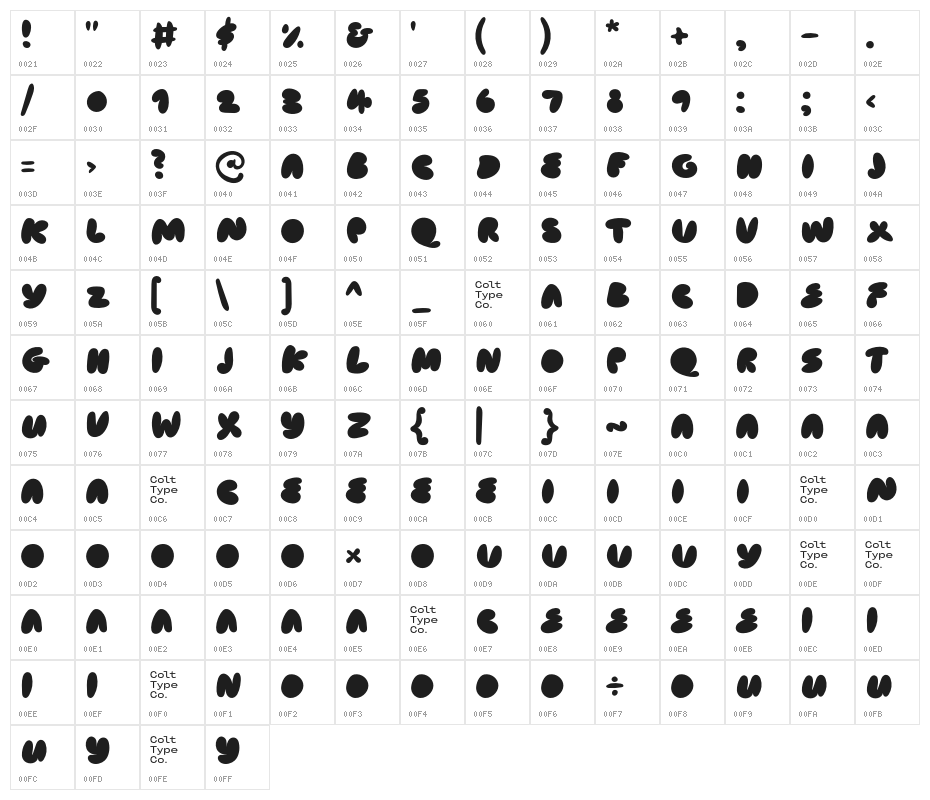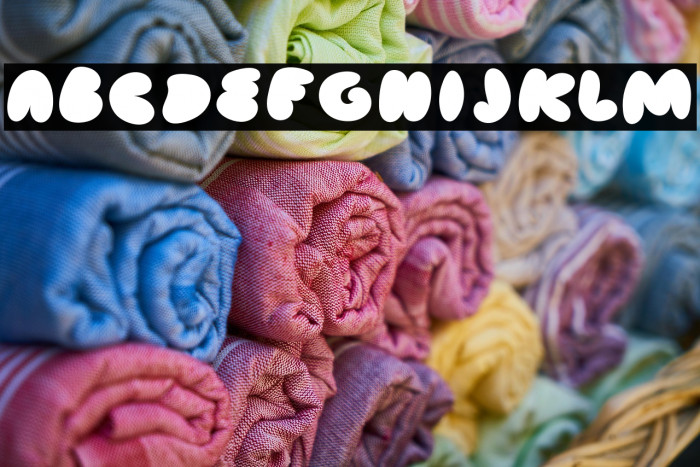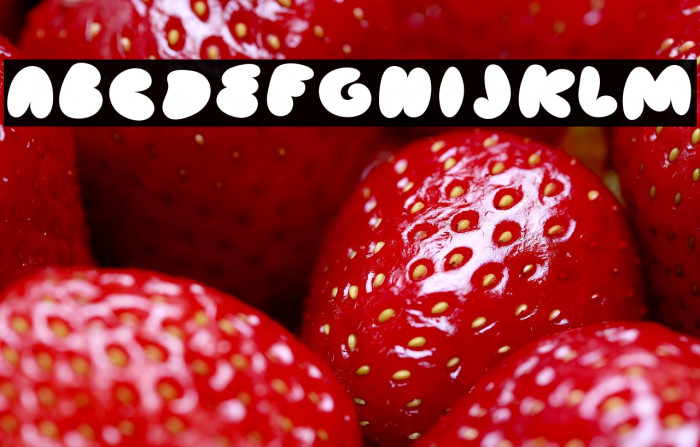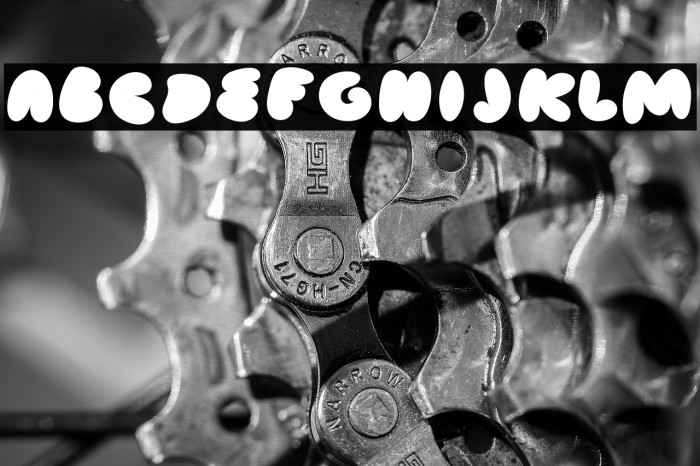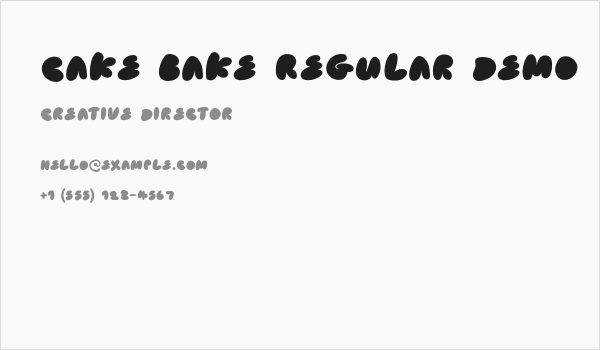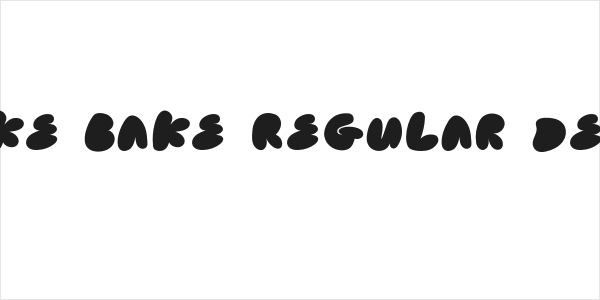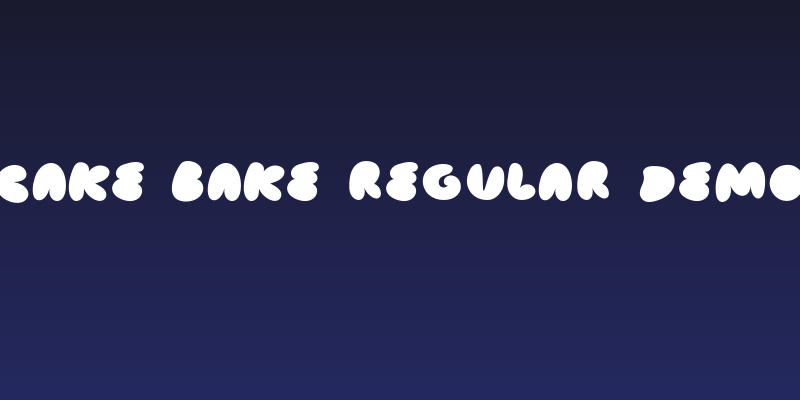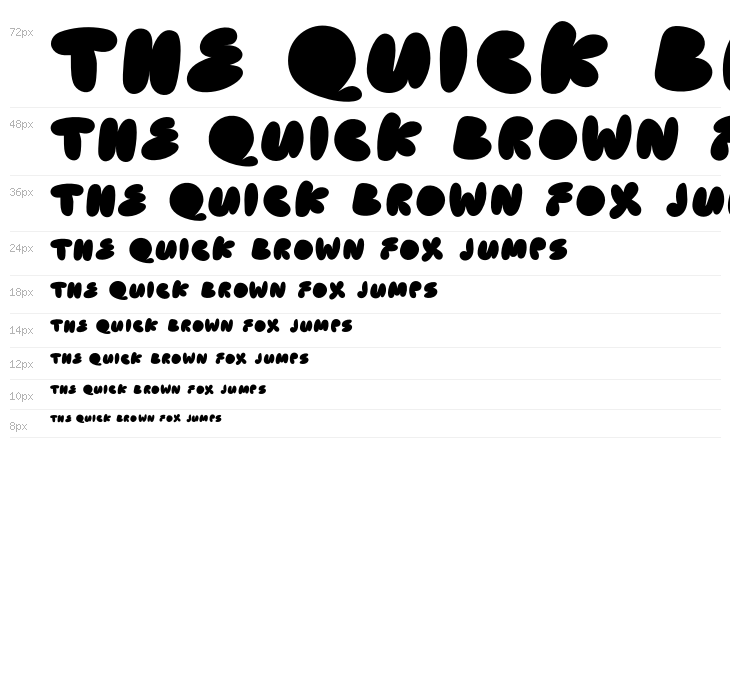
Cake Bake Regular Demo Font
Cake Bake Regular Demo Description
This playful and bold font features rounded, bubble-like characters that exude a sense of fun and whimsy. The letters are thick and substantial, with a consistent weight throughout, giving them a strong presence on the page. The rounded edges and smooth curves create a friendly and approachable feel, making it ideal for projects that aim to convey warmth and creativity. The font includes a full set of uppercase and lowercase letters, numbers, and a variety of special characters, ensuring versatility in design applications. Its unique style is perfect for capturing attention and adding a touch of personality to any text.